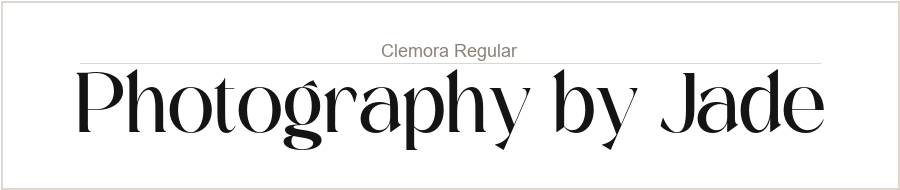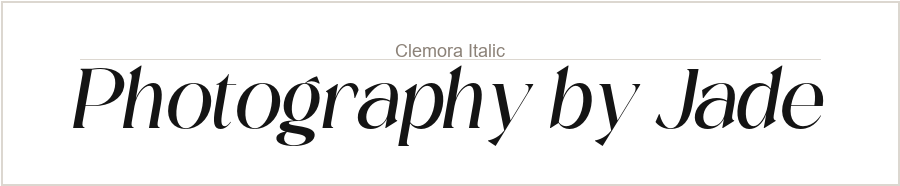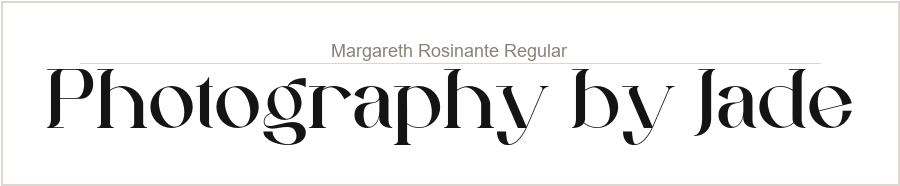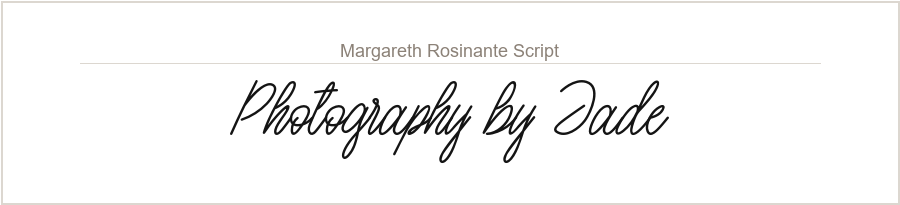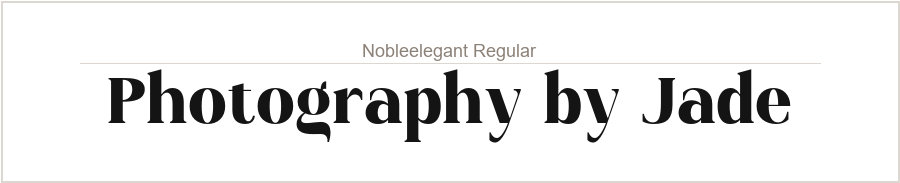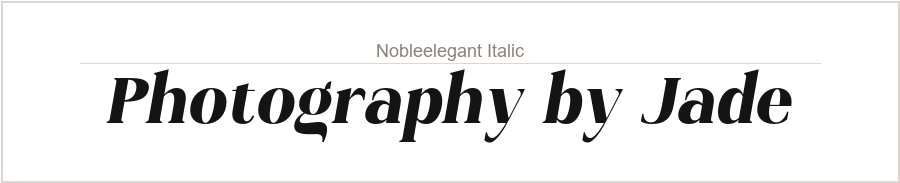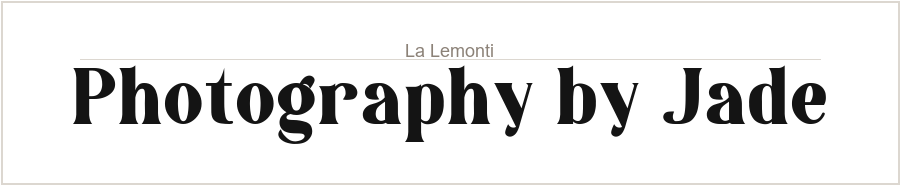
Serif fonts tend to feel more serious than other styles. They are however quite trendy for branding right now. This list focuses on free elegant serif fonts that come with a commercial license, which means you can use them for logos, branding, packaging, social media, and client work or even upload them to Canva.
1. Wordan
Wordan is a striking bold serif display font that would work well for a brand name or a single short headline, but anything longer would get hard to read fast.
2. Clemora
Clemora is a clean, high-contrast serif that sits comfortably between classic and modern. It also includes ligatures and alternate characters, which is useful if you want more control over how a logo or wordmark looks.
3. Seraphim
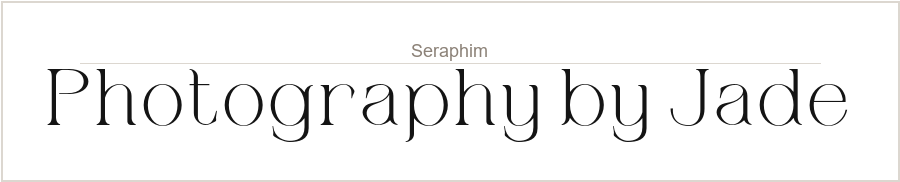
Seraphim is a light, traditional serif with well-defined serifs. It’s more readable than some of the thinner options in this list, which makes it a solid choice if you want something refined but still clearly legible.
4. Margareth Rosinante
Margareth Rosinante is a duo that contains a serif and a handwritten script in one download. The serif has very dramatic appearance and the script companion is a casual handwriting style, which pairs well with it if you want to mix type in a logo or heading. The two together give you a lot of flexibility for branding.
5. Leonis
Leonis has a slightly art deco look, particularly in the uppercase. The italic version leans quite far, which gives it a distinctly different feel from the regular. These two together could work well as a heading and subheading pairing within the same brand.
6. Sok Brubah
Sok Brubah is a decorative serif font with tiny diamond shapes embedded in some of the letterforms. It’s all caps and wouldn’t work for body text or anything that needs to be highly legible, but for a logo or a single-word brand name it would stand out.
7. La Fleur
La Fleur is a the kind of serif font you see in fashion magazine mastheads. It comes in three styles: regular, italic, and oblique and all three work well for logos and headings where you want something that reads as modern and sophisticated.
8. Hidda
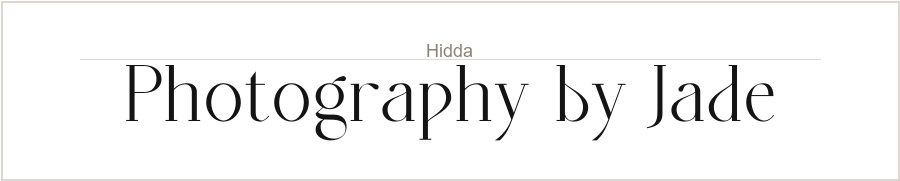
Hidda is probably the most delicate font in this list. It is thin and well spaced. If you’re building a brand around clean, understated design, this is a good one to look at.
9. Noble Elegant
Noble Elegant is certainly on the bolder side. The italic version is noticeably bolder than most italics, so it doesn’t fade into the background if you use it for a subheading. This is a good choice for creating emphasis.
10. Laisha
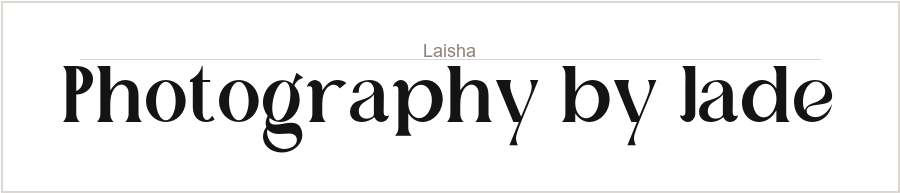
Laisha has a retro feel compared to the other fonts in this list — the serifs are chunkier and it leans more vintage than elegant. It could work for a brand that wants a serif with some personality rather than a clean, polished look, but it’s the odd one out here stylistically.
11. Raclie
Raclie is very light and has an airy feel that makes it look good on anything with a lot of white space around it. It’s great for bodies of text, packaging, and stationery. It would get lost quickly at small sizes though.
12. La Lemonti
La Lemonti is a chunky, high-contrast serif. It would work well for bits of text that need emphasis.
13. Ethereal Havena
Lastly, we have Ethereal Havena. It has very sharp and prominent serifs which gives it a unique look from other serif fonts on this list.
That’s 13 free elegant serif fonts, all available with a commercial license. If you’re building a brand identity or working on a design that needs a polished, refined look, any of these would be a solid starting point.